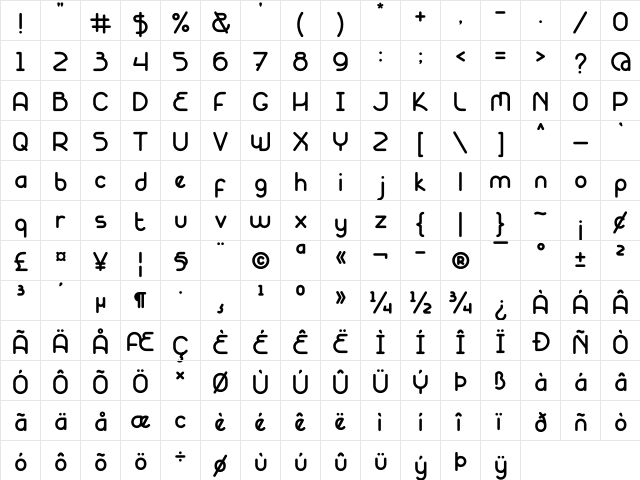
Nodelines Regular
| Designer | Typeline Studio 2020 |
Design Context for Nodelines Typeface
Nodelines is a composed and adaptable typeface that performs quietly and consistently across a wide range of design contexts.